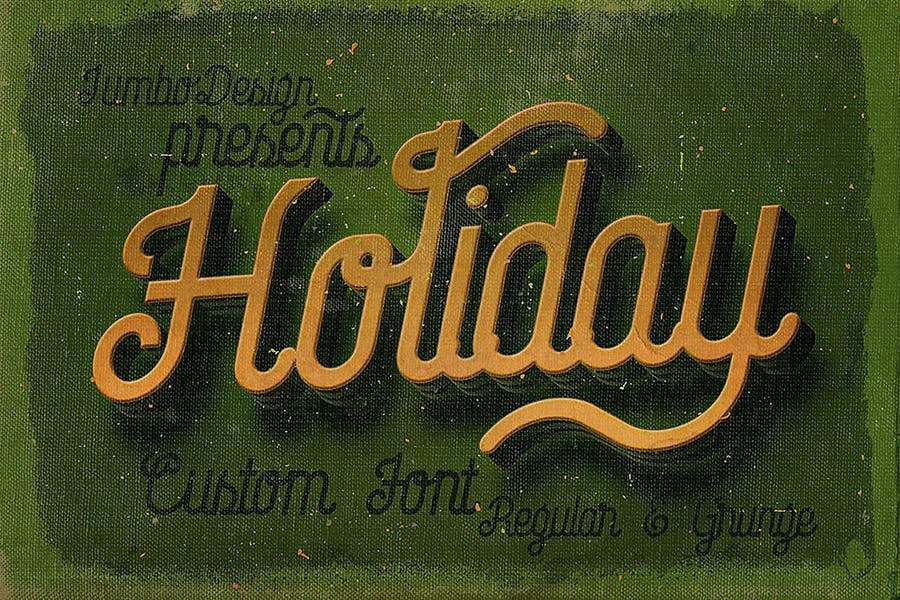
Holiday - Creative Script Font
Holiday - Creative Script Font is perfect for vacation resort branding, travel agency marketing, festive greeting cards, celebration event invitations, leisure activity promotions, tropical destination signage, holiday-themed packaging, cheerful social media graphics, relaxation spa materials, and joyful seasonal campaigns.
Holiday - Creative Script Font creates excitement because it embodies the carefree spirit and joyful anticipation of vacation time with its flowing script letterforms and celebratory character design. The font's elegant curves and festive energy instantly evoke feelings of relaxation and happiness, making any brand appear welcoming and fun-loving. Its carefully crafted handwritten aesthetic and uplifting appearance create an immediate sense of celebration that captivates audiences seeking escape, enjoyment, and memorable experiences that bring joy and excitement to their lives.
The Holiday - Creative Script Font family includes multiple weights and styles: Regular, Bold, Light, Medium, Italic, Condensed, Extended, Flourished, Decorative, and Casual versions. Each variant maintains the font's joyful holiday character while offering different levels of formality and celebratory styling suitable for various vacation and celebration applications.
This delightful typeface brings the magic of holiday celebrations into modern design projects with authentic warmth and festive charm. Holiday - Creative Script Font Free Download offers travel professionals and celebration planners access to premium script typography that captures the essence of joyful experiences and memorable occasions. The font's cheerful design and inviting character make it ideal for businesses creating memorable vacation experiences and celebratory moments that bring people together. Whether you're developing branding for travel destinations, creating promotional materials for holiday resorts, designing invitations for special celebrations, or producing marketing content for leisure and entertainment venues, this font delivers the festive atmosphere that resonates with audiences seeking happiness, relaxation, and unforgettable experiences. Its versatile script design ensures excellent performance across both elegant printed materials and vibrant digital campaigns while maintaining the handcrafted warmth of personal celebration. The font excels in applications requiring emotional connection and celebratory appeal. Hospitality professionals appreciate its ability to convey joy while remaining highly readable for various promotional materials and guest communications. The comprehensive character set includes celebratory flourishes and international language support, making it perfect for global travel brands and international celebration venues seeking to communicate authentic holiday spirit, joyful experiences, and welcoming hospitality to diverse worldwide audiences who seek genuine happiness, memorable celebrations, and the perfect escape from everyday routine.